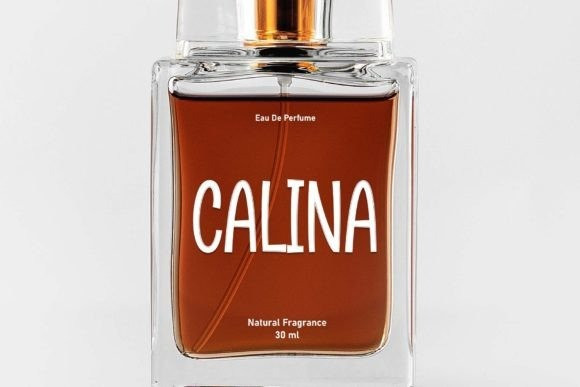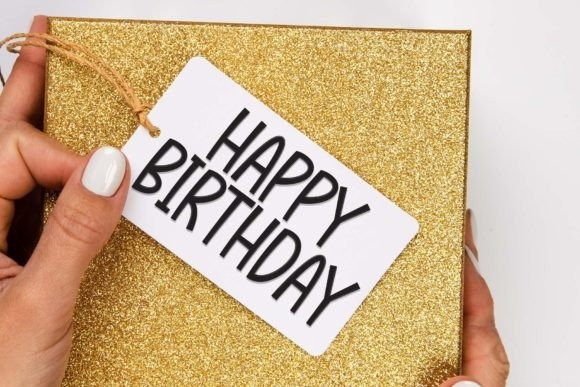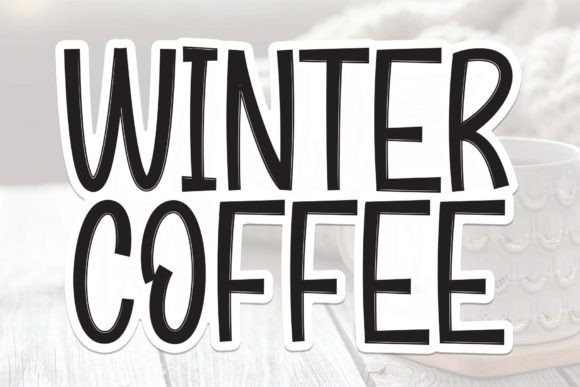
Winter Coffe Font
Winter Coffe Font is a sweet and friendly handwritten font. Stylish and versatile, this font is ideal for writing wedding invitations, cards, or any other design that might need a fun touch!